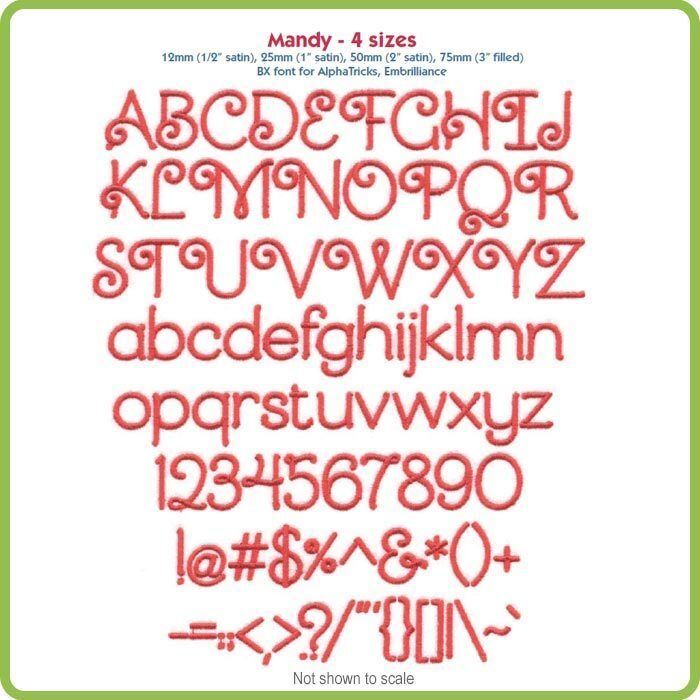
Collection Notes: Mandy is a curly rounded regular font that includes A-Z, a-z, 0-9, and the following punctuation: ~!@#$%&()-[]:;"',.?/ in 4 sizes: 12mm (1/2" satin), 25mm (1" satin), 50mm (2" satin), 75mm (3" filled).